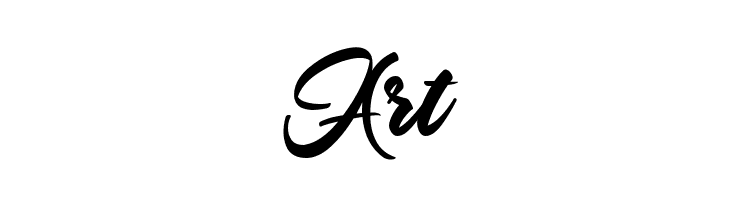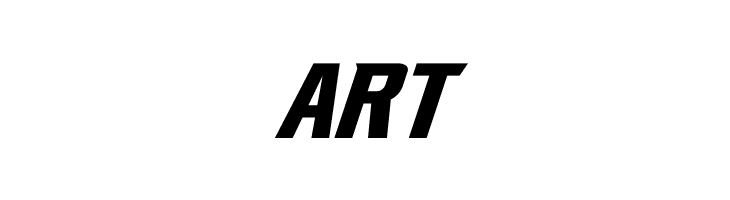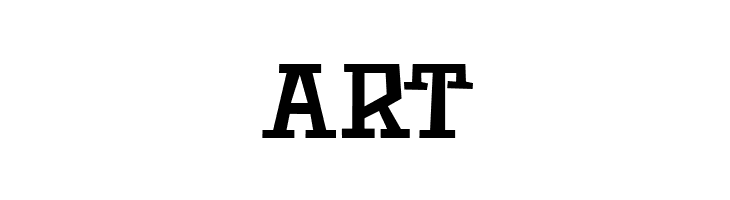
A bold, 3D expanded font with a futuristic and dynamic style.
A bold, futuristic font with geometric lines and dynamic movement.
A bold, expanded, and italic font with a modern, dynamic style.
A bold, angular font with a futuristic and geometric design.
A bold, dynamic font with a gradient effect and futuristic style.
A bold, dynamic font with a halftone effect and a futuristic aesthetic.
A bold, italicized font with a halftone effect, perfect for modern and dynamic designs.
A bold, geometric font with a halftone effect and futuristic style.
A bold, italic, and futuristic font with angular, geometric characters and decorative arrow elements.
A bold, angular font with a futuristic and dynamic design.
A bold, 3D geometric font with outlined characters and a dynamic style.
A bold, 3D italic font with a futuristic and dynamic style.
A bold, 3D-styled font with a leftward slant and outlined characters.
A bold, 3D expanded font with a futuristic and dynamic style.
A bold, futuristic font with an expanded, layered design.
A bold, expanded, and italicized font with a dynamic and futuristic style.
A bold, expanded font with geometric and angular design, perfect for modern displays.
A bold, gradient-effect font with a futuristic, digital style.
A bold, dynamic font with a halftone effect and angular, modern design.
A bold, italicized font with a halftone effect and dynamic, modern style.
A bold, decorative font with a halftone effect and modern, geometric style.
A bold, italicized font with sharp, angular lines and a dynamic style.
A bold, angular font with a geometric and modern design.
A bold, decorative font with diagonal line patterns and high contrast.
A bold, decorative font with a cross-hatched, hand-drawn style.
A bold, playful font with rounded, bubbly characters.
A bold, futuristic font with geometric elements and a modern appearance.
( Crosterian is a geometric slab serif typeface inspired by Tuscan typefaces )
A bold, geometric font with sharp edges and a strong presence.
A bold, abstract font with irregular, splattered letterforms.
A bold, italicized font with jagged, brush-like strokes for a dynamic look.
Whimsical decorative font using crow illustrations for each character.
A decorative and modern font with elegant swirls and bold, clean lines.